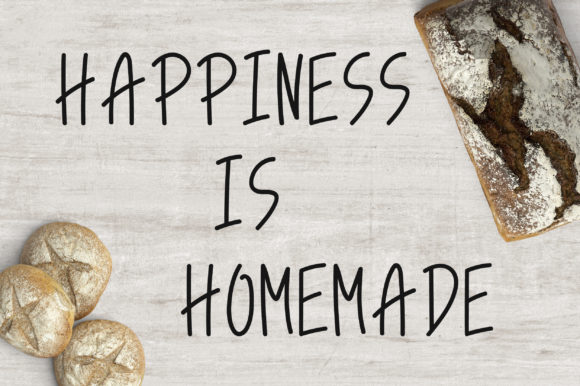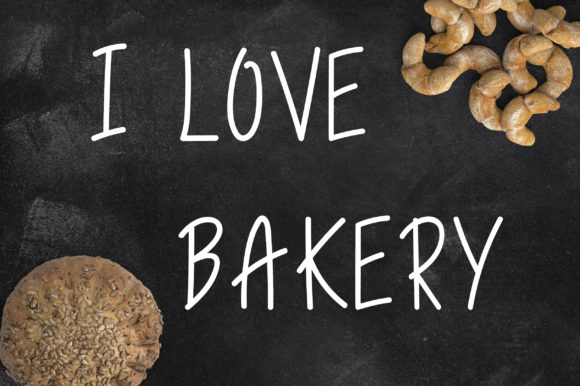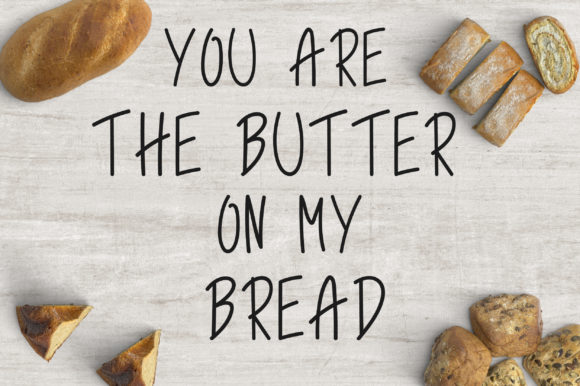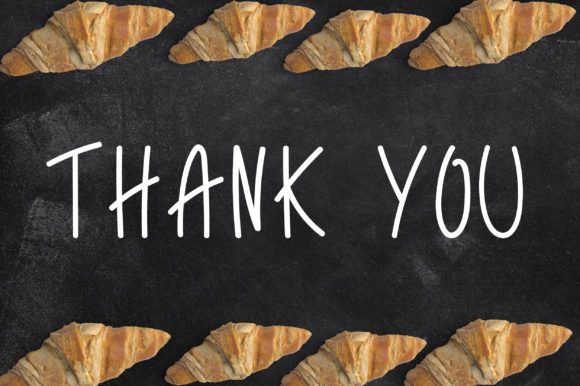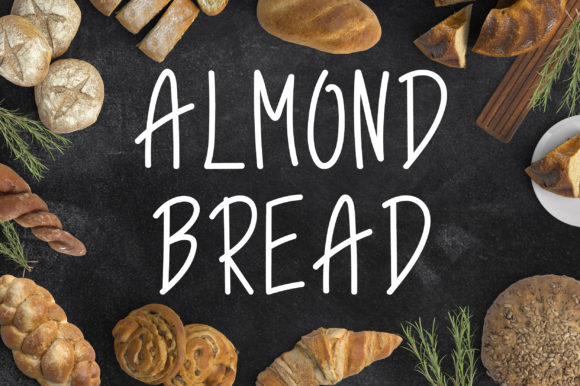
The Almond Bread Font: A Friendly and Versatile Companion for Your Design Projects
I’ll never forget the time I was working on a wedding invitation project, and my client asked me to create a custom font that would match the warm and cozy feel of their special day. I spent hours scouring the internet for the perfect font, but nothing seemed quite right. That’s when I stumbled upon the Almond Bread font, and it instantly became my go-to choice. In this article, I’ll share my experience with this lovely font, its features, and how to make the most of it in your design projects.
An Honest Review of Almond Bread Font
The Almond Bread font has won my heart with its incredibly friendly feel. Here are some things I love about it:
- ✨ Cute and casual handwritten style: Almond Bread has a charming, laid-back vibe that’s perfect for a wide range of design projects.
- ✅ Versatile: This font is suitable for branding, headings, wedding designs, invitations, signatures, logos, labels, and much more!
- 💕 Easy to read: The font’s clear and legible, making it perfect for both digital and print designs.
While Almond Bread is an excellent font, it’s not without its quirks:
- 🤔 Limited formal use: Due to its casual nature, Almond Bread might not be the best choice for very formal or corporate designs.
- ⚠️ Some letters may require adjustment: Depending on the word or phrase, you might need to adjust the letter spacing for optimal results.
The Story Behind Almond Bread Font
Almond Bread was designed with love and care by a talented type designer who wanted to create a font that would bring a smile to people’s faces. The designer’s inspiration came from the warm, comforting feeling of freshly baked bread, which is reflected in the font’s friendly and approachable style.
Q: What type of designs is Almond Bread best suited for?
A: Almond Bread is versatile and can be used for a wide range of designs, including branding, headings, wedding designs, invitations, signatures, logos, labels, and more!
Q: Is Almond Bread a difficult font to read?
A: No, Almond Bread is designed to be easy to read, making it perfect for both digital and print designs.